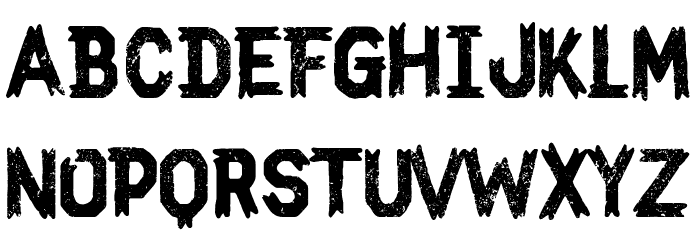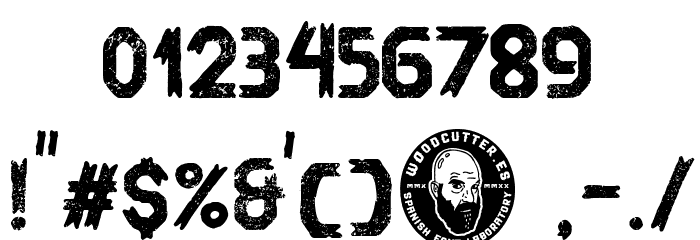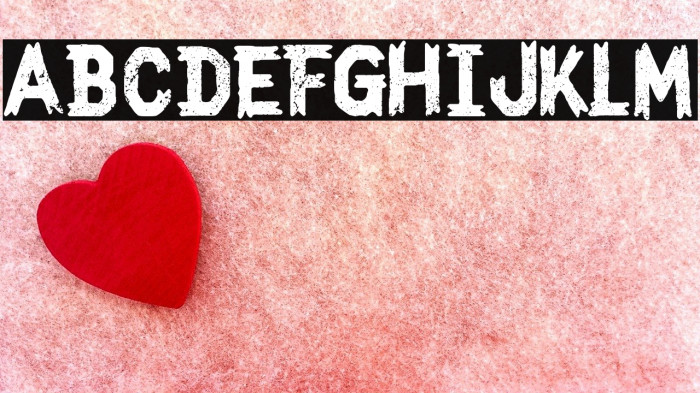
Gang Avenue Font
This font features a bold, distressed style with a rough, textured appearance that gives it a gritty, urban feel. The characters are uppercase with a consistent height, and the numbers share the same rugged aesthetic. The font's unique design is characterized by its uneven edges and worn-out look, making it ideal for projects that require a raw, edgy vibe. The special characters maintain the same distressed texture, ensuring a cohesive look across all text elements. This font is perfect for designs that aim to convey a sense of toughness or rebellion.
A bold, distressed font with a gritty, urban aesthetic.
- Font: Gang Avenue
- Proposed Projects: Ideal for posters, album covers, streetwear branding, and event flyers.
- Overall Style: Urban, Edgy, Distressed